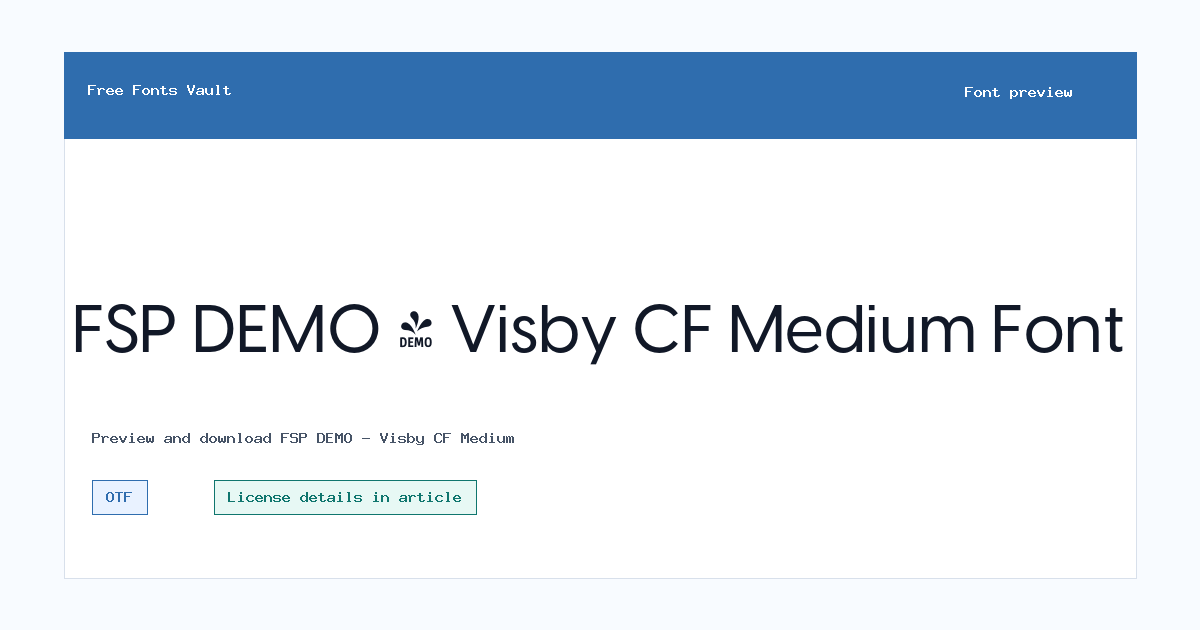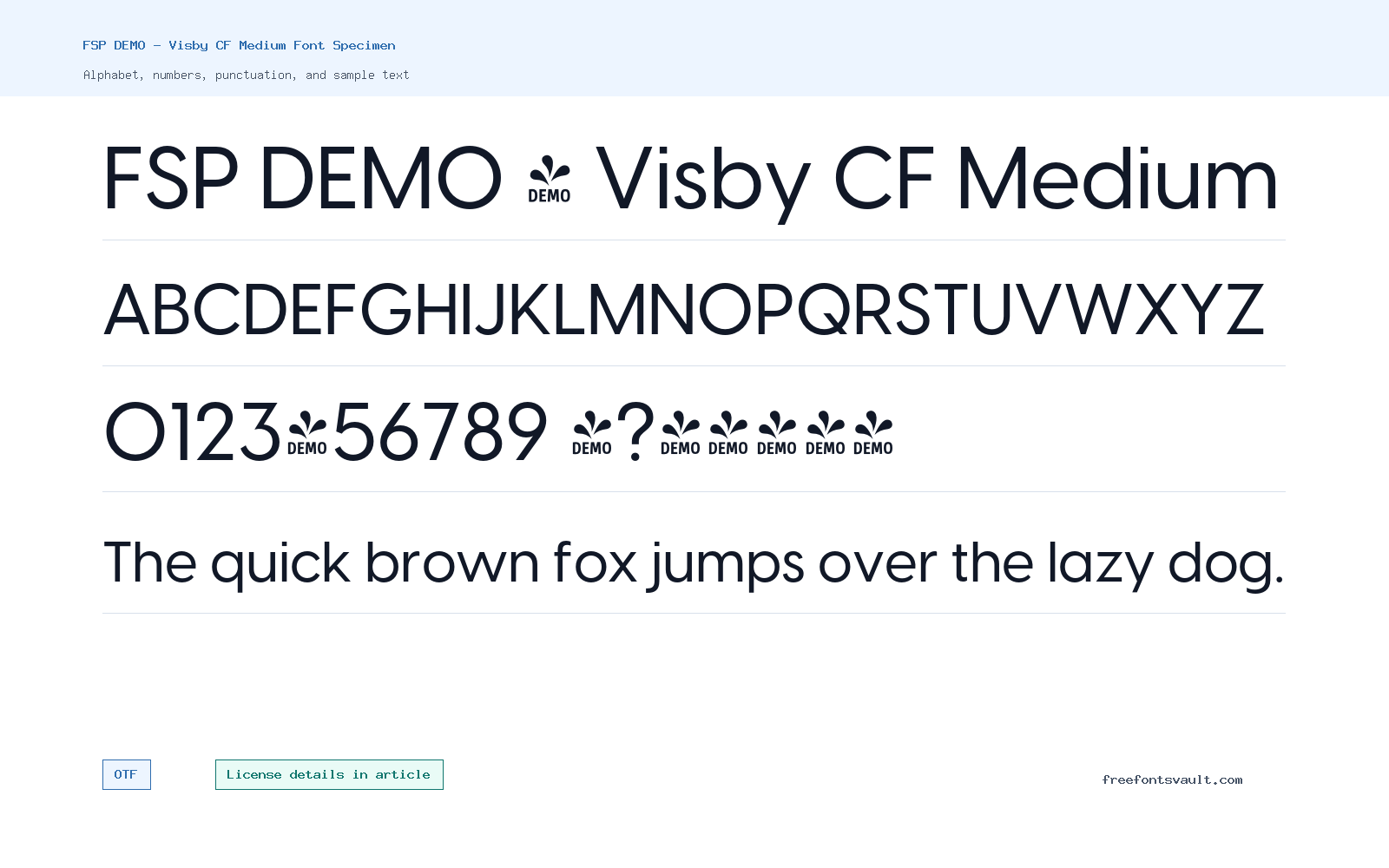
FSP DEMO - Visby CF Medium
FSP DEMO – Visby CF Medium font.
FSP DEMO – Visby CF Medium is a clean sans serif font with a balanced middle weight. It is useful when you want text to feel modern and orderly without becoming too thin, too heavy, or too decorative.
About FSP DEMO – Visby CF Medium
The download entries include an upright Medium style and a Medium Oblique companion. That combination makes the font more practical than a single-style display face: the upright can carry headings, labels, and short interface-style text, while the oblique can add emphasis in captions, callouts, or brand mockups.
Visby CF Medium is the kind of font to test when a project needs a geometric, contemporary tone. It can suit posters, social graphics, product labels, navigation text, and clean title systems. For longer passages, check readability carefully at the final size and line length, because demo cuts and geometric sans designs can behave differently in real layouts than they do in large previews.
- Medium 500 weight that feels clear without becoming overly bold.
- Clean sans serif structure for titles, labels, mockups, and short UI-style text.
- Oblique style gives a built-in option for emphasis without switching families.
- Best tested with your own headings, numbers, punctuation, and mixed-case wording.
- Modern posters, social graphics, presentation titles, and clean headline systems.
- Brand mockups, logo roughs, product labels, and navigation-style typography.
- Short paragraphs or captions after checking spacing and readability at final size.
- Pairing upright and oblique styles for hierarchy in a simple layout.
What is this font best for?
It is best for clean headings, posters, labels, social graphics, navigation text, and brand mockups that need a modern sans serif voice.
Should I use it for body text?
You can test short body copy, but preview it at the final size and line length. For long reading, compare it with a full licensed text family.